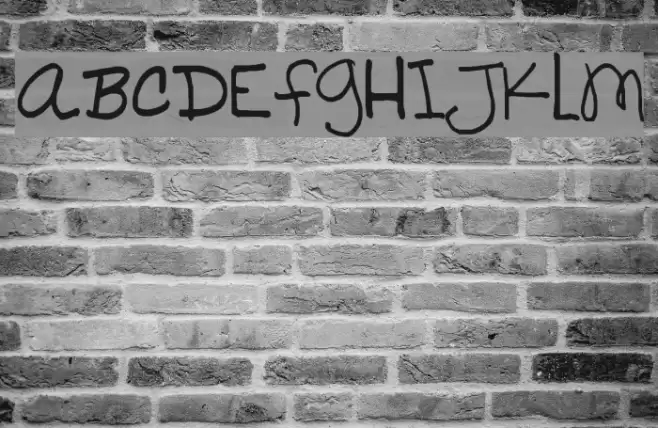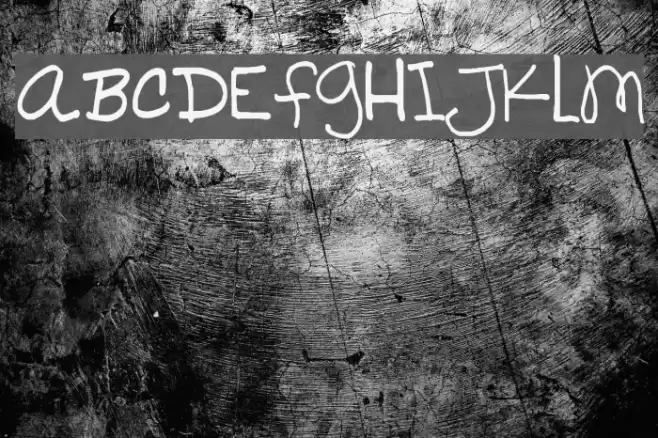
Loverly Font
Loverly Description
This font exhibits a playful and whimsical handwritten style, characterized by its irregular and flowing letterforms. The uppercase and lowercase letters have a casual, almost doodle-like appearance, with varying stroke thicknesses that add to its charm. The numerals and special characters maintain this informal aesthetic, making the font feel approachable and friendly. Its unique style is reminiscent of personal notes or informal invitations, offering a sense of warmth and individuality. The overall design is both quirky and endearing, suitable for projects that require a personal touch.
A playful, whimsical handwritten font with irregular, flowing letterforms from Uncategorized fonts.
- Proposed Projects: Ideal for greeting cards, personal invitations, children's books, and creative branding.